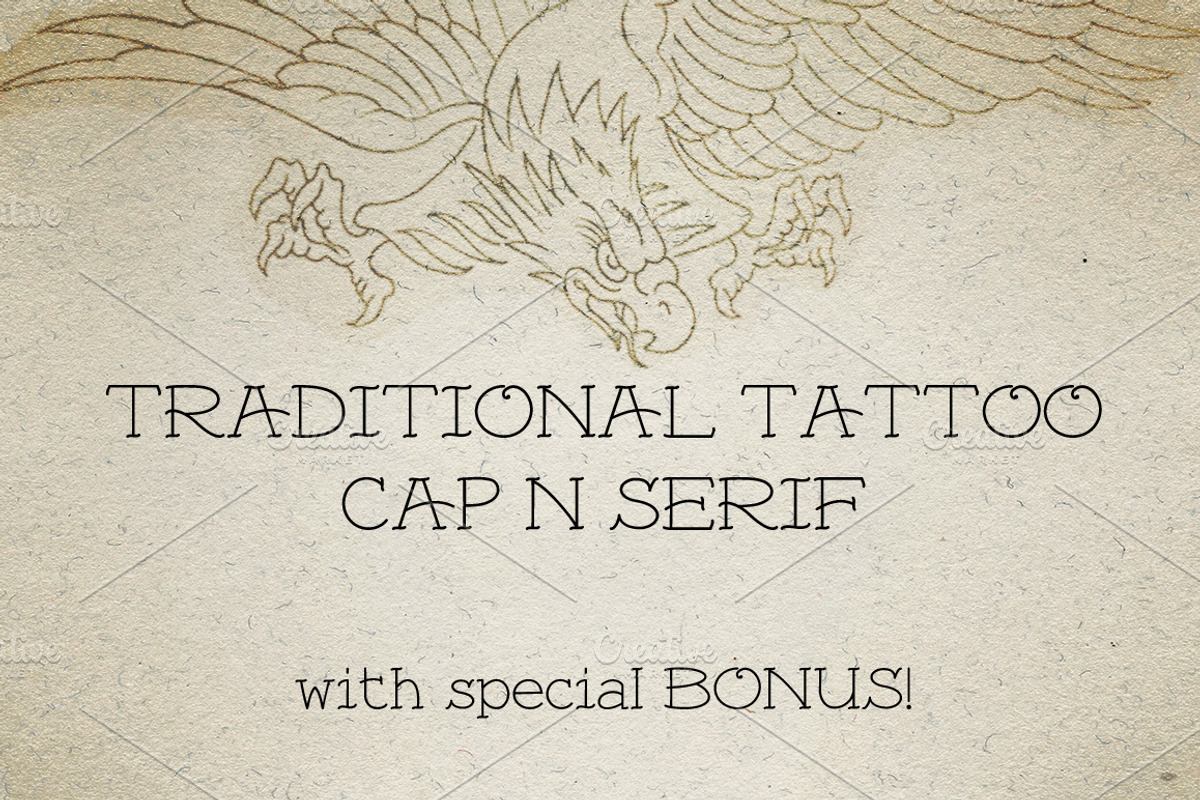
Traditional Tattoo Cap N' Serif Font Free Download is a bold and vintage-inspired typeface that captures the timeless spirit of old-school tattoo artistry. With strong capital letters, classic serif detailing, and a rugged aesthetic, this font is perfect for tattoo shop branding, merch design, vintage posters, bar signage, and anything that channels rockabilly, biker, or Americana vibes.
Its all-caps style and traditional flair make it highly impactful in headlines and logos, giving your designs an authentic, handcrafted feel rooted in classic tattoo culture.